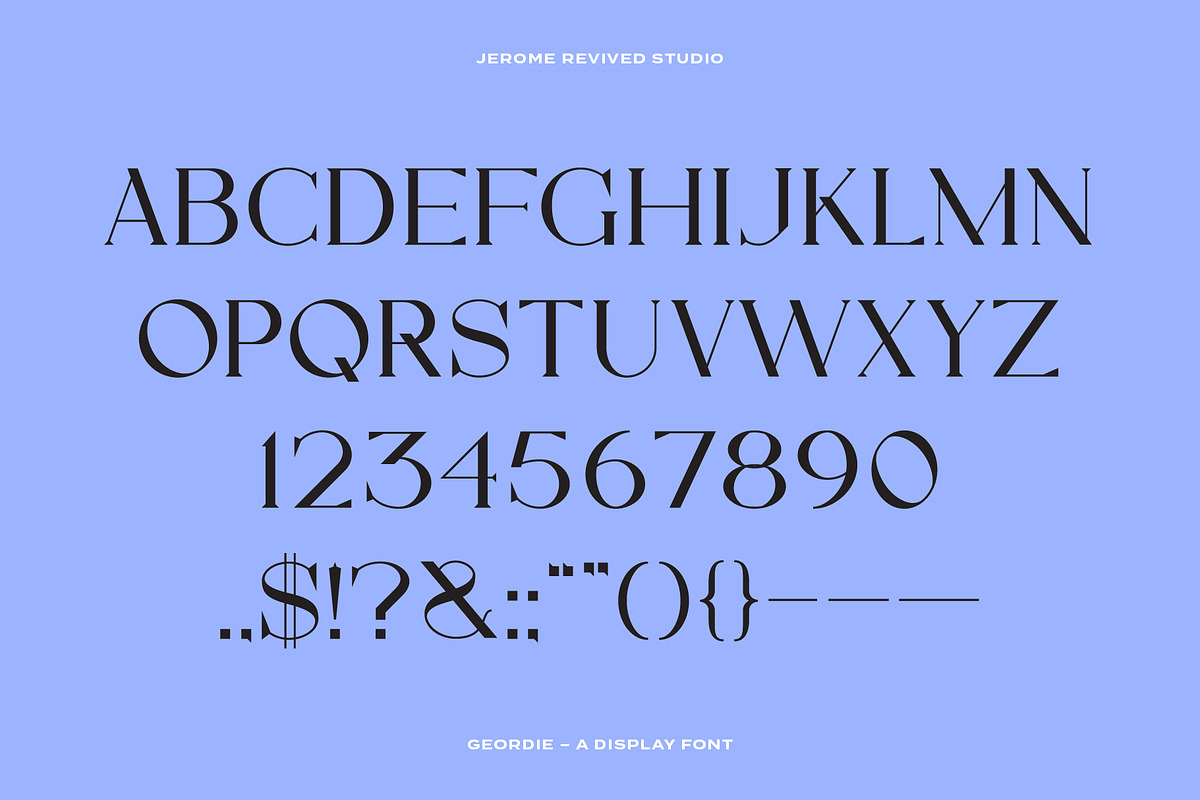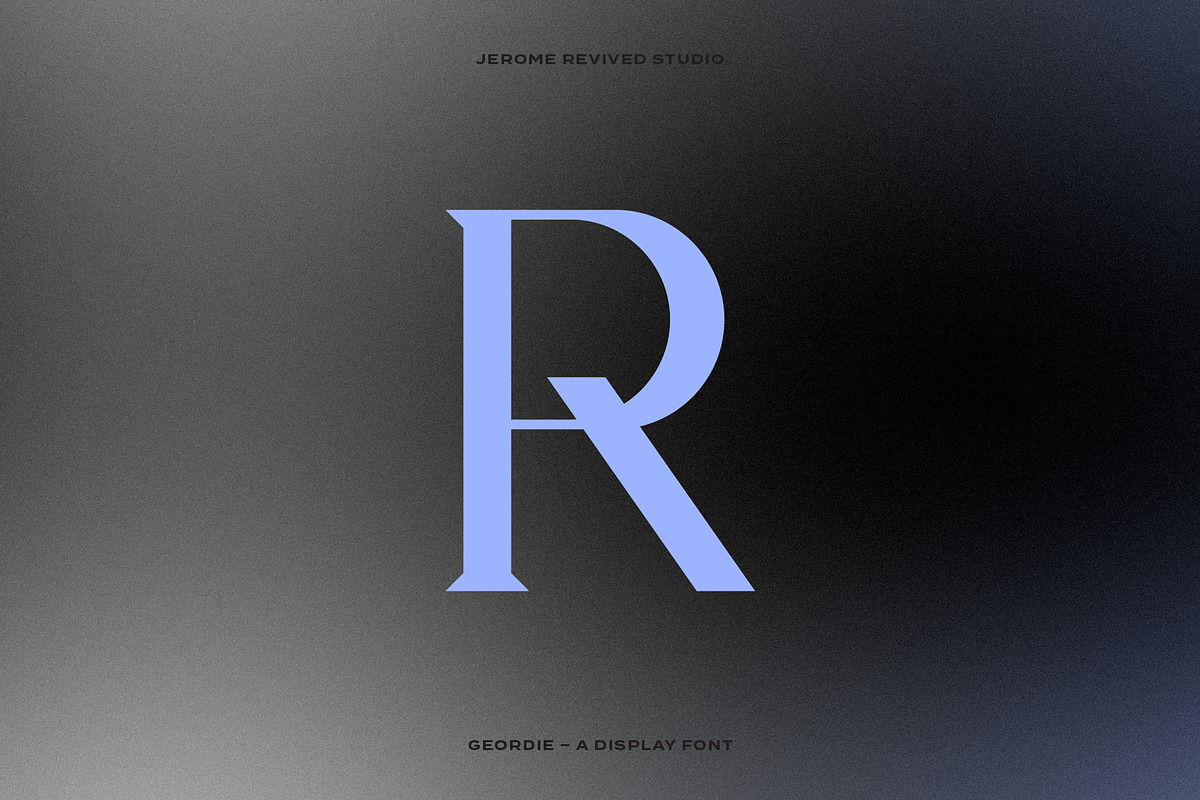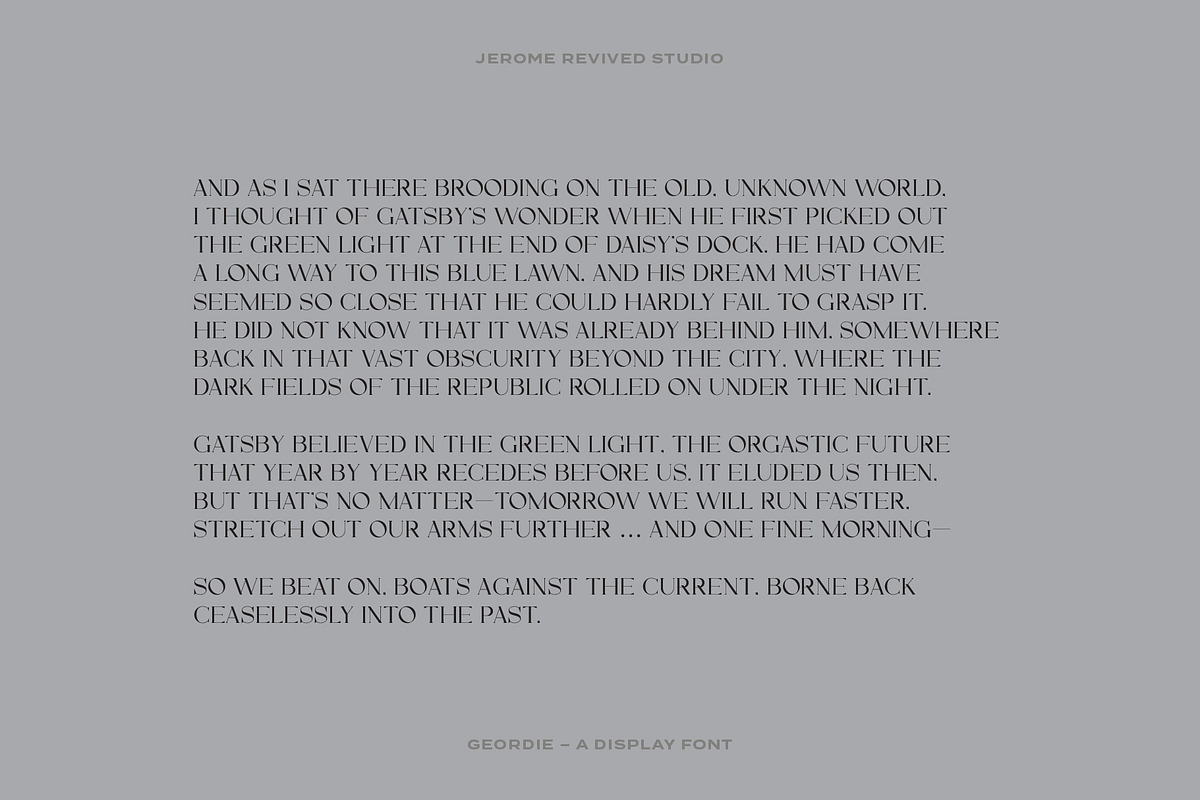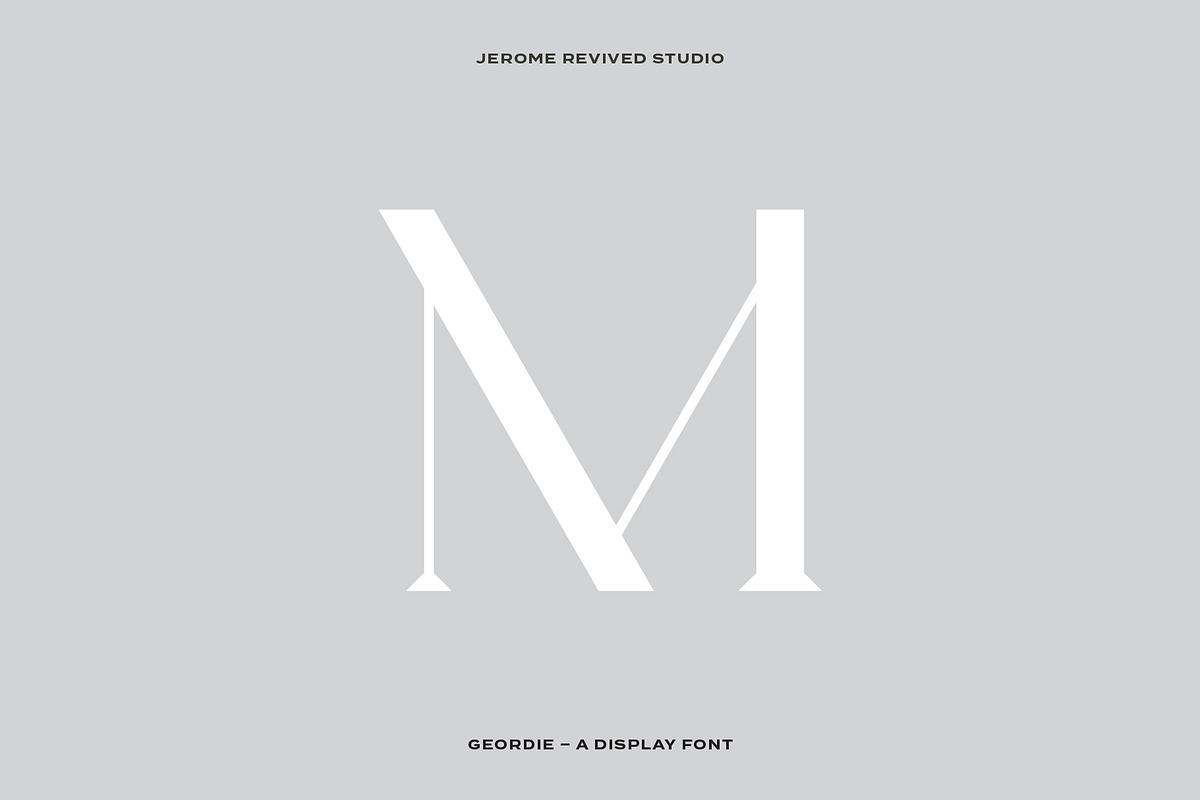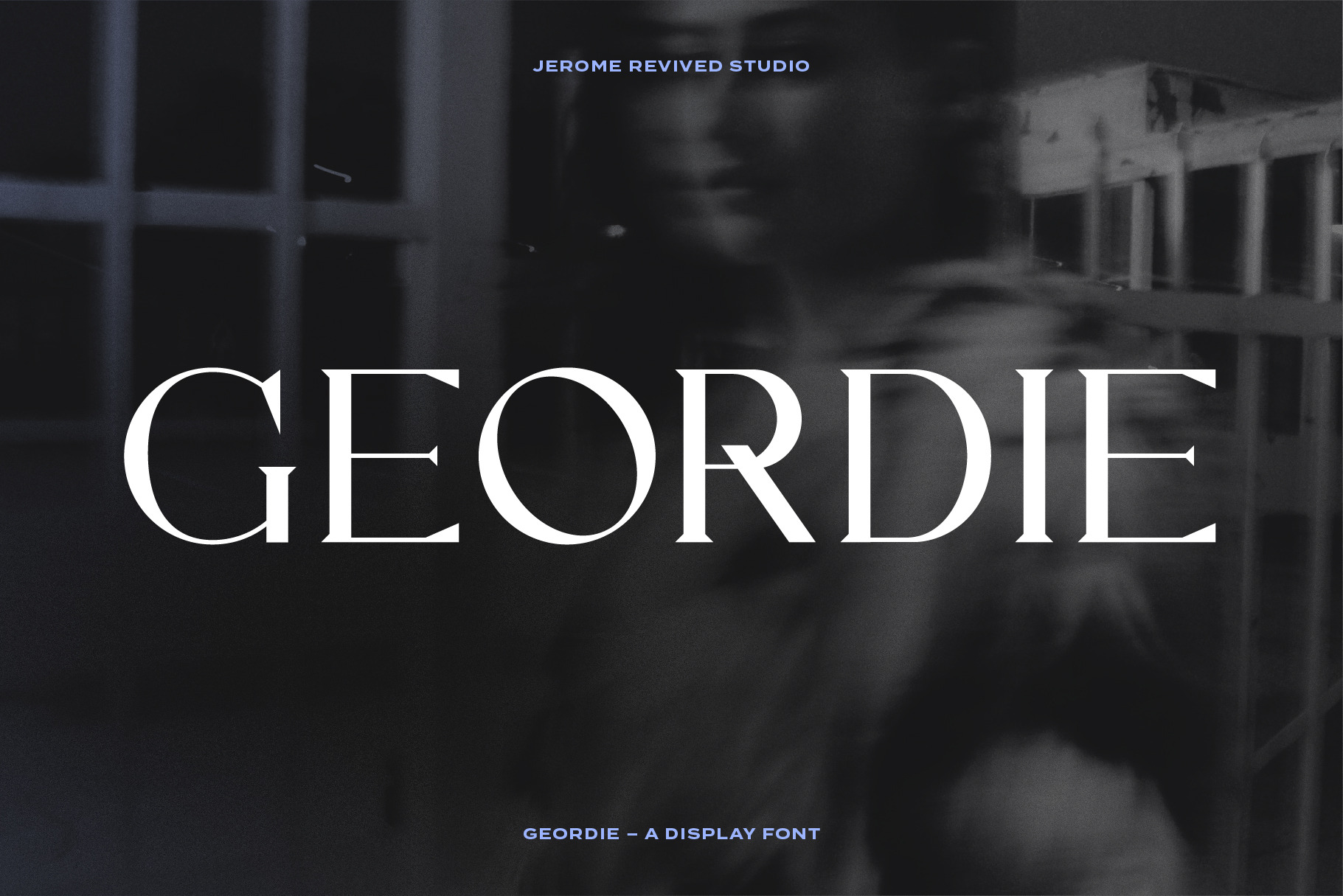
Geordie Display Font
Geordie is a sharp display typeface with angled serifs and bold slashed stroke. It has an editorial vibe with a bit of an edge.
It has a limited character set of all uppercase lettering, numbers, limited punctuation, and a single weight. If the font is expanded upon in the future, you'll have access to a free update!